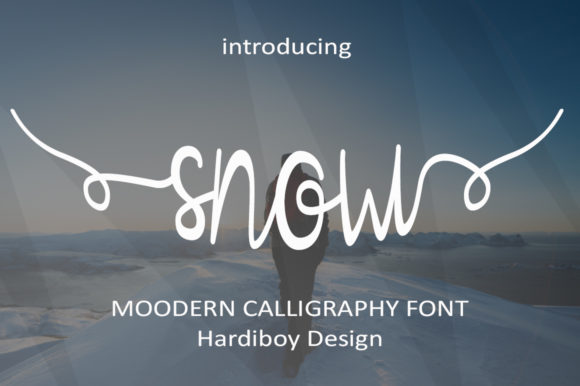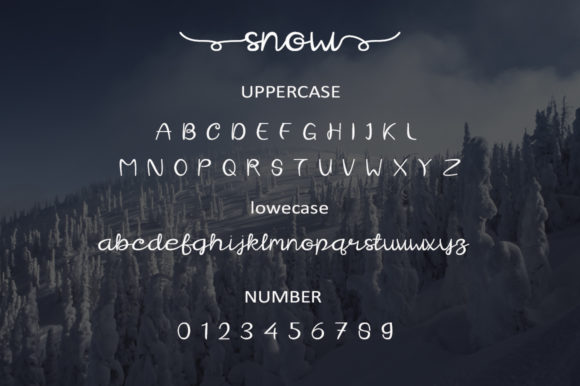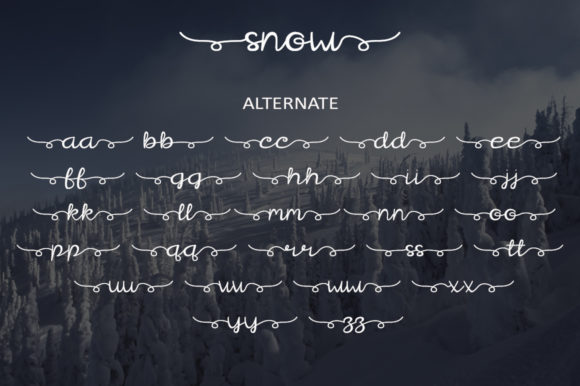
About Snow Font
Snow is a romantic and dreamy handwritten font. It looks stunning on wedding invitations, thank you cards, quotes, greeting cards, logos, business cards and every other design which needs a handwritten touch.